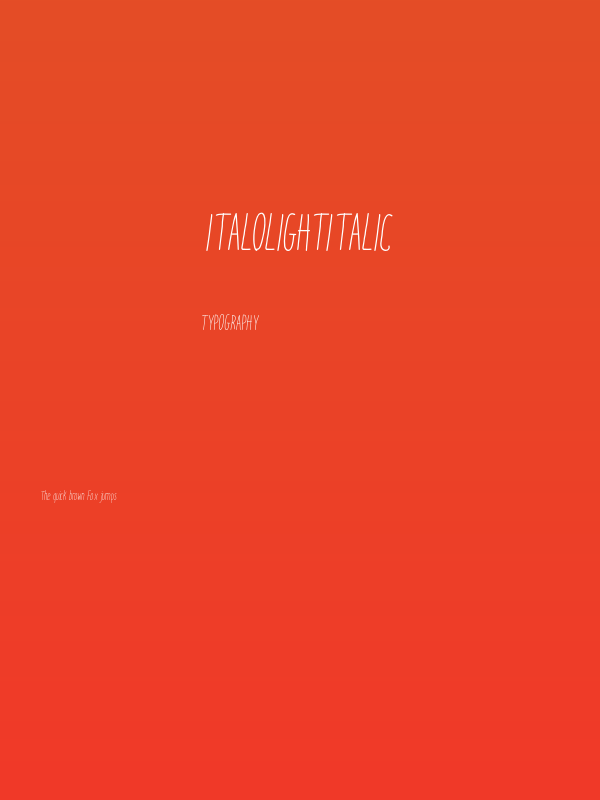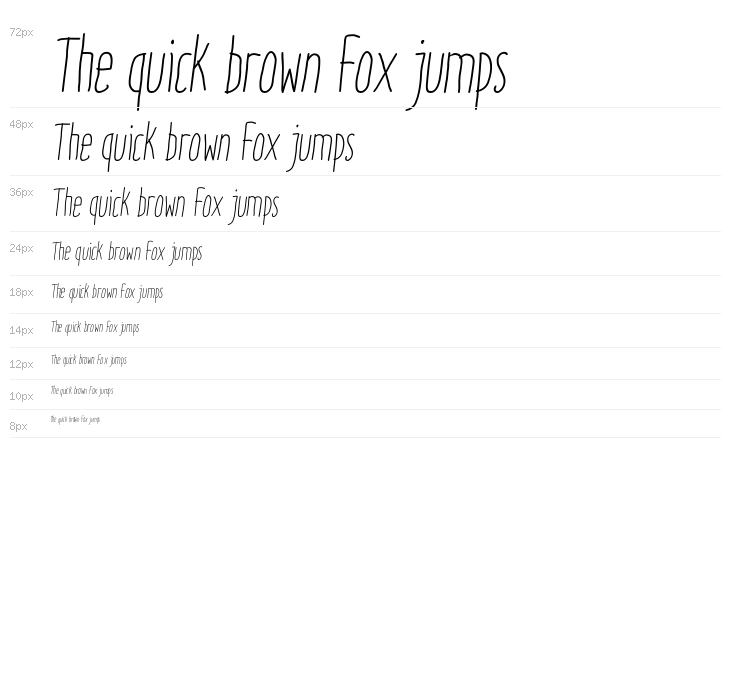
ItaloLightItalic Font
ItaloLightItalic Description
This font features a light and elegant design with a subtle italic slant, giving it a sophisticated and modern appearance. The characters are elongated and slightly condensed, creating a sleek and stylish look. The strokes are consistent in weight, contributing to a clean and refined aesthetic. The font maintains a delicate balance between readability and artistic flair, making it suitable for various creative applications. Its unique style is characterized by smooth curves and a gentle flow, enhancing its overall appeal.
| Proposed Projects | Ideal for fashion magazines, elegant invitations, branding for luxury products, and artistic posters. |